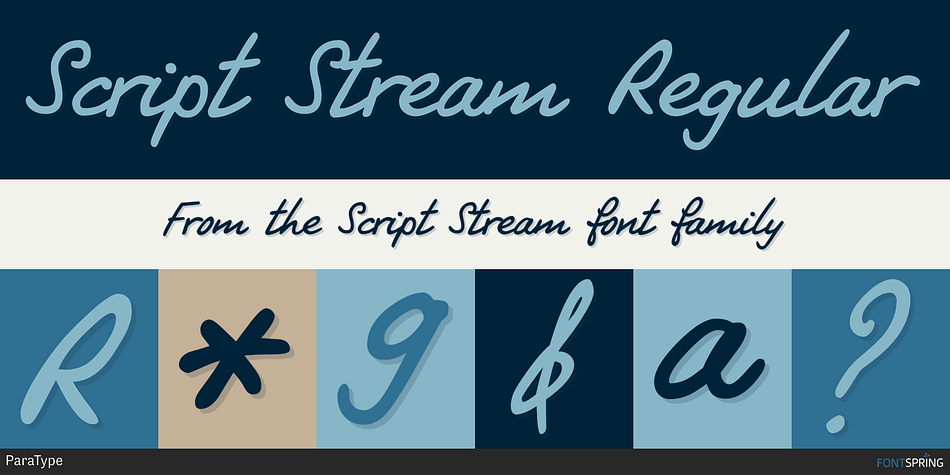
Designed by Gennady Fridman, Script Stream is a hand drawn and script font published by ParaType.
Script Stream was developed for the series of handwriting fonts based on the writing samples of real people. The font delivers natural sincere touch and can magically convert any annoying advertising text into intimate advice of your good friend.
The first version of the font in Latin was released in 1998. It was extended to include Cyrillic (designer Gennady Fridman) and rereleased in 2013.
Designer | Gennady Fridman |